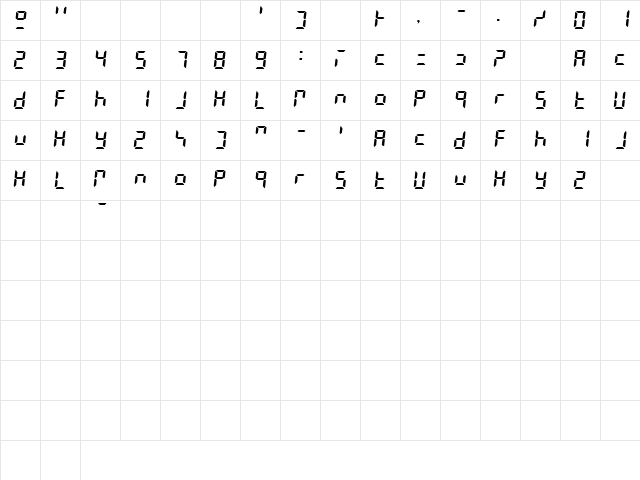
Heart 2 Regular
Design Context for Heart 2 Typeface
Heart 2 takes a measured approach to typography — its balanced proportions and neutral character make it a reliable workhorse for both digital and print work.